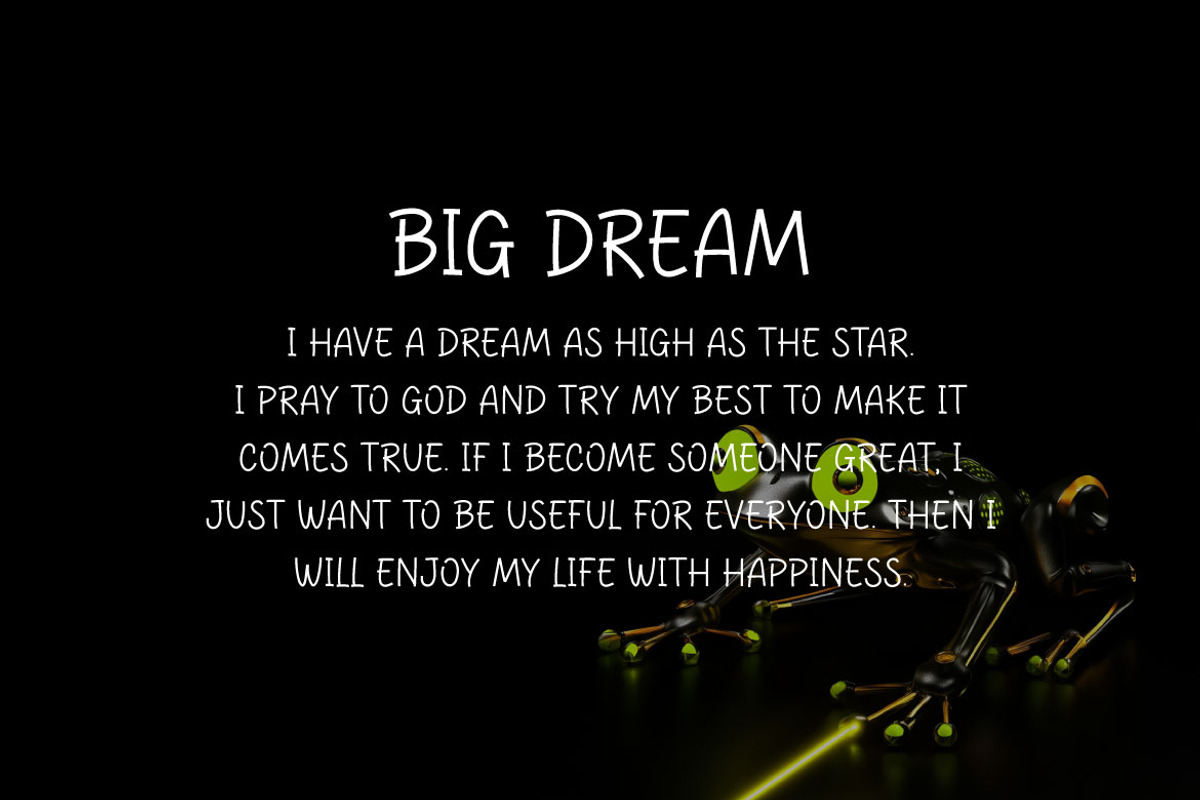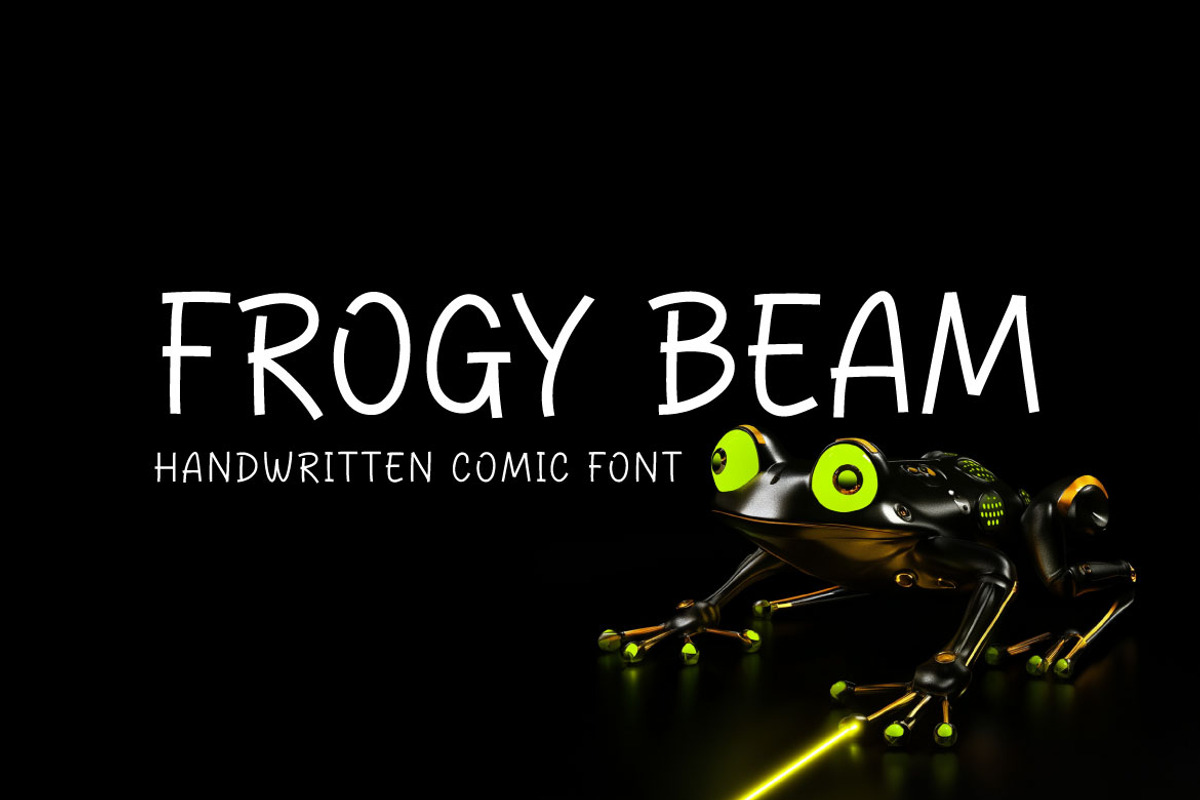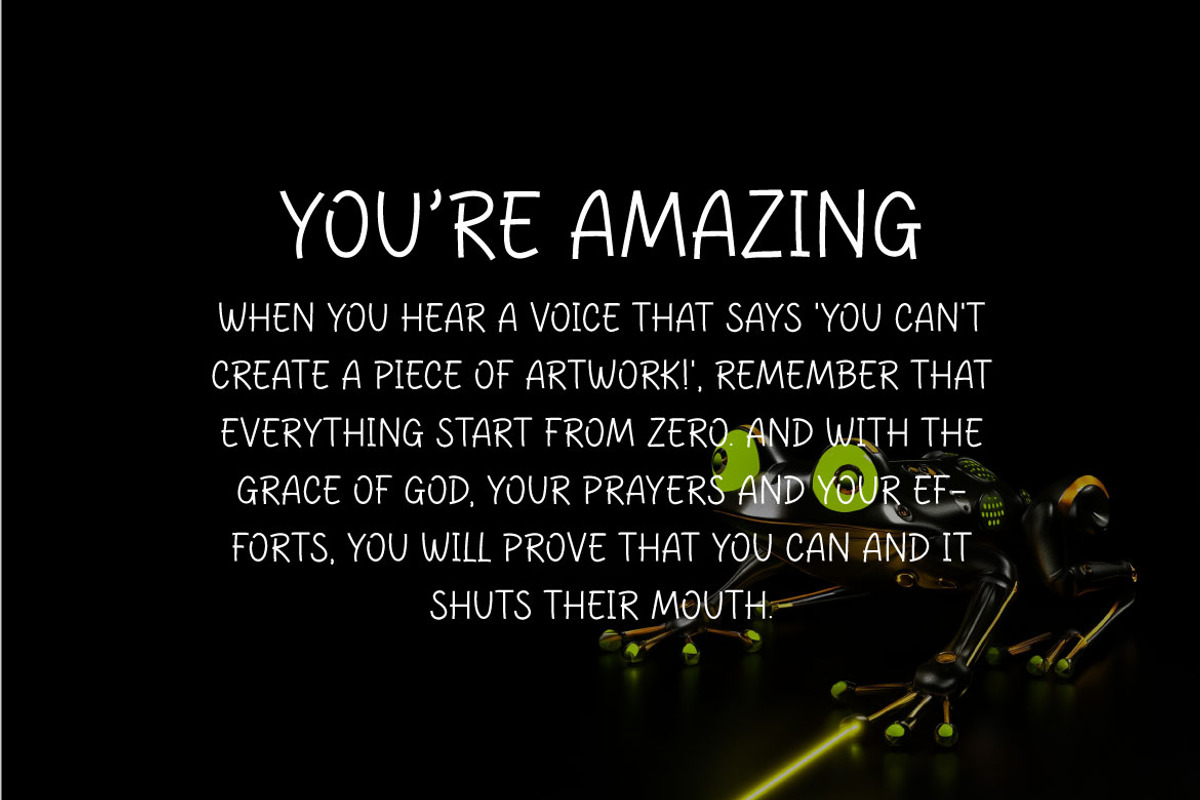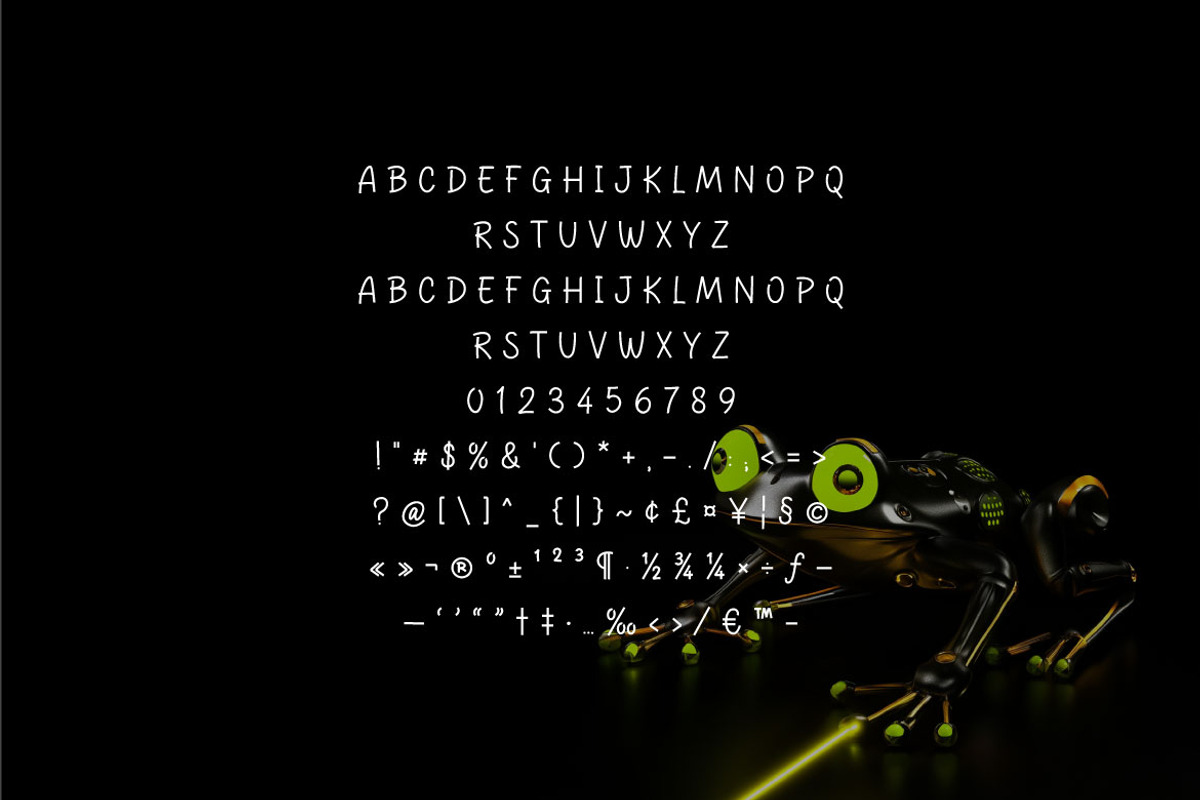
Frogy Beam - Handwritten Comic Font
Introducing Frogy Beam – A Delicate Thin Handwritten Typeface
Frogy Beam is a refined and elegant thin handwritten font that brings a touch of sophistication and charm to any project. Designed with meticulous attention to detail, each character showcases graceful, flowing strokes that create a natural, handwritten feel. Perfect for projects that require a personal touch, Frogy Beam adds a subtle and stylish appeal to invitations, greeting cards, logos, quotes, and more. This versatile typeface is ideal for modern branding, minimalist designs, and creative expressions. With its delicate lines and smooth curves, Frogy Beam is easy to read while maintaining a unique, artistic character.
Add a dash of elegance to your next design project with Frogy Beam – where simplicity meets beauty.